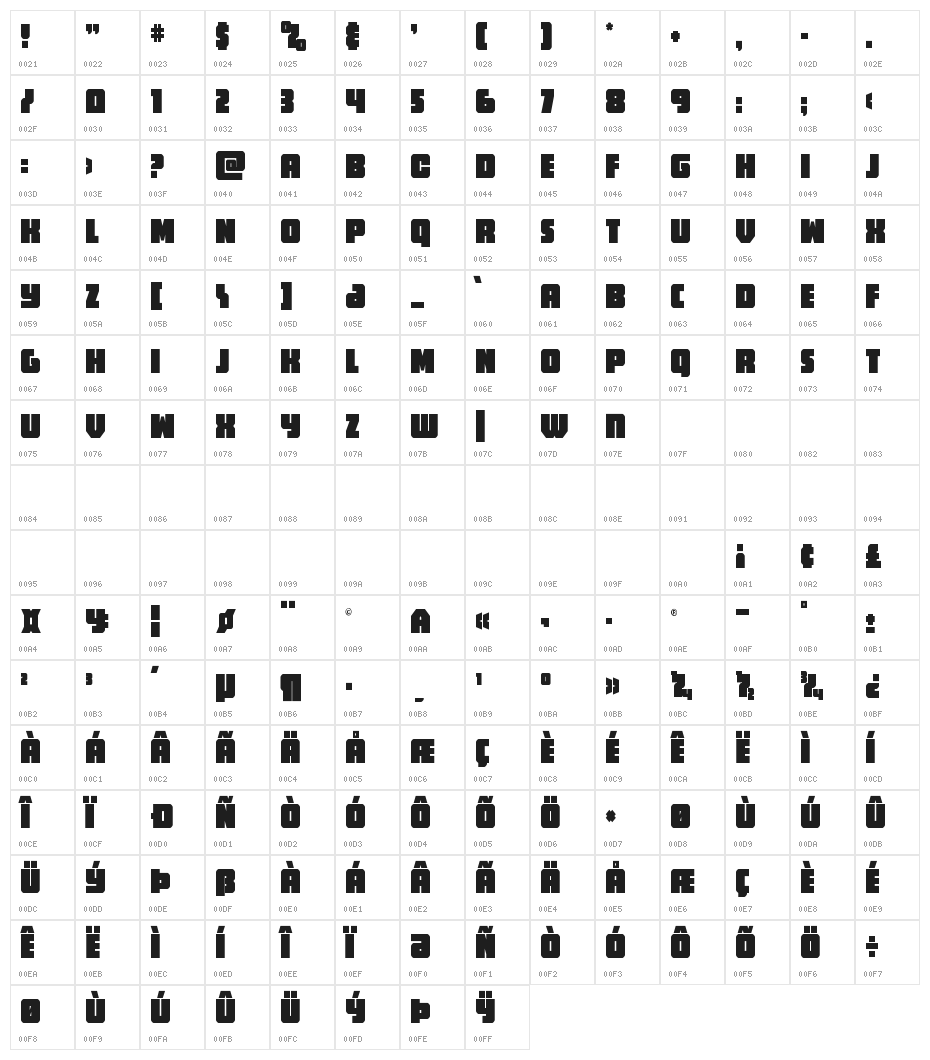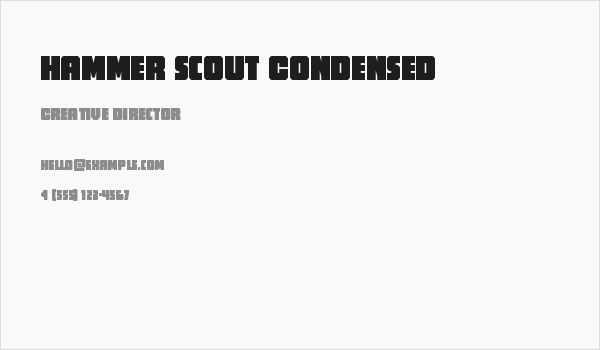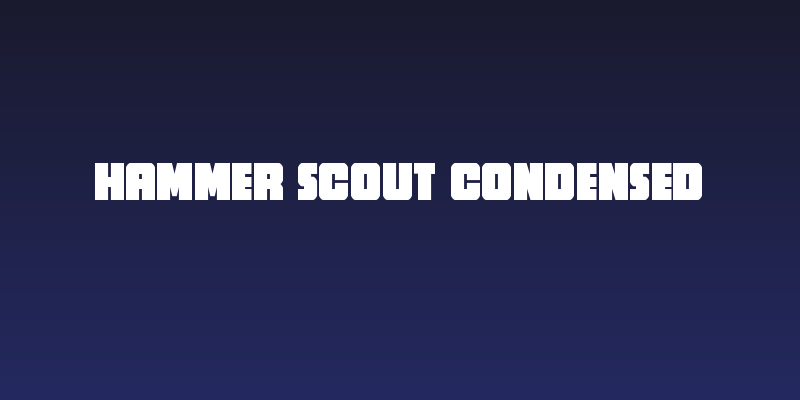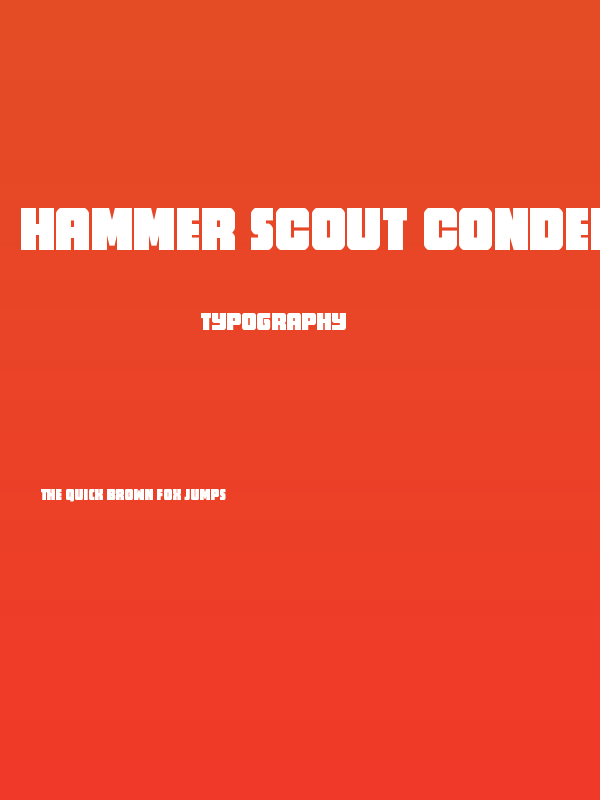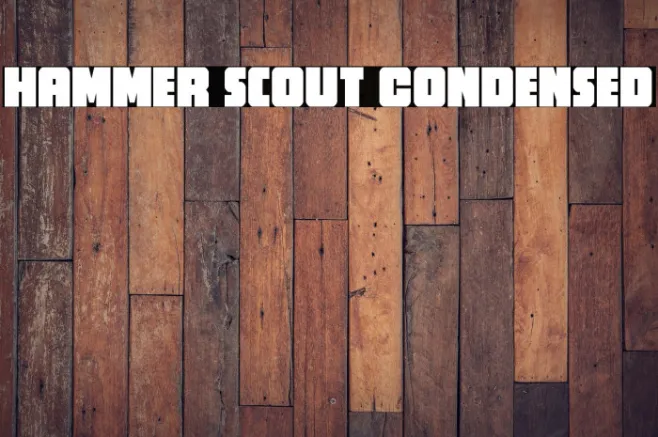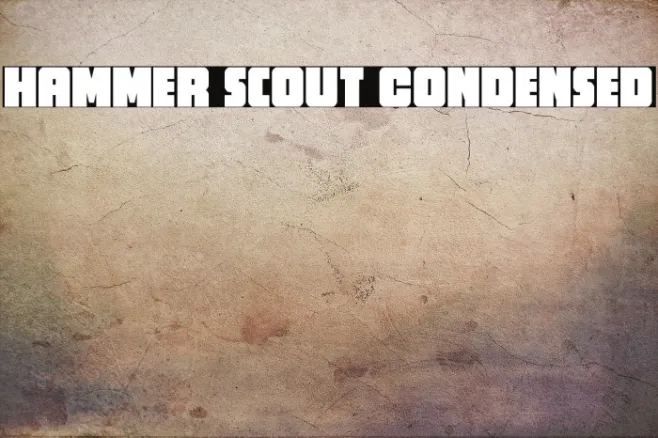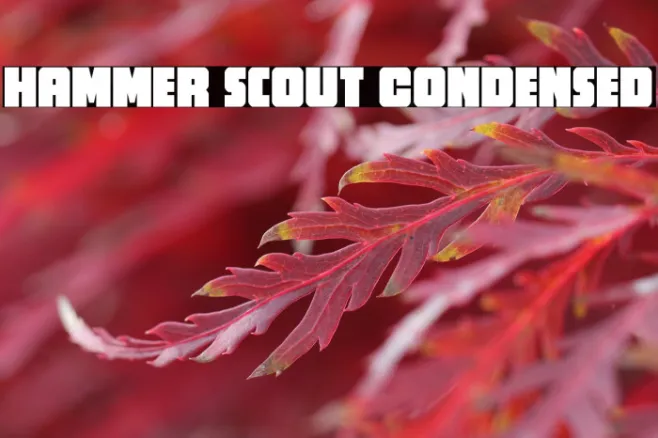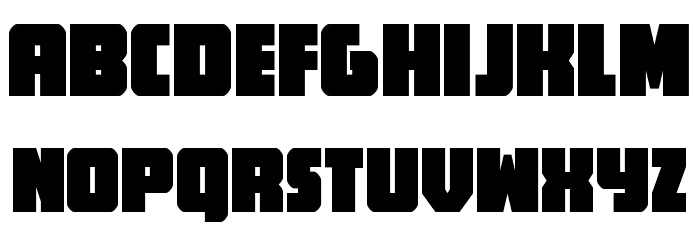
Hammer Scout Condensed Font
Hammer Scout Condensed Description
This font is a bold, condensed typeface with a strong, impactful presence. The characters are blocky and geometric, featuring sharp angles and a uniform thickness throughout. The uppercase and lowercase letters maintain a consistent style, with the uppercase being particularly striking due to their size and weight. The numbers and special characters follow the same bold and condensed design, making them highly legible and visually cohesive with the alphabet. This font's condensed nature allows for efficient use of space, making it ideal for headlines and titles where impact is essential.
| Proposed Projects | Ideal for posters, headlines, logos, and branding materials that require a bold statement. |